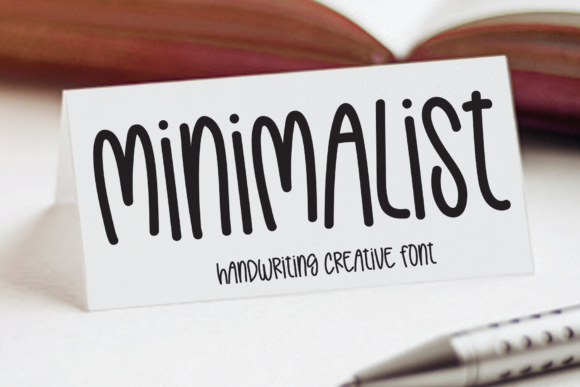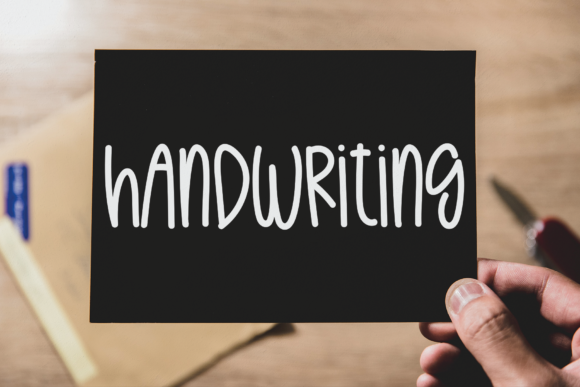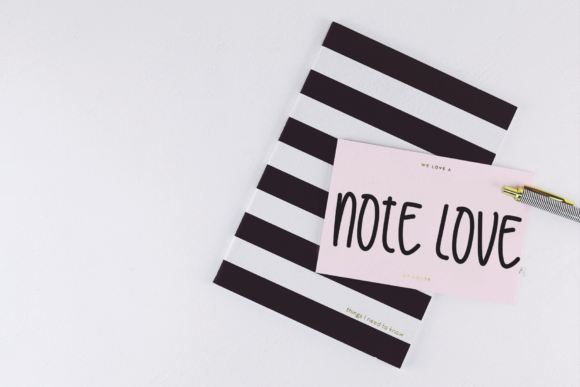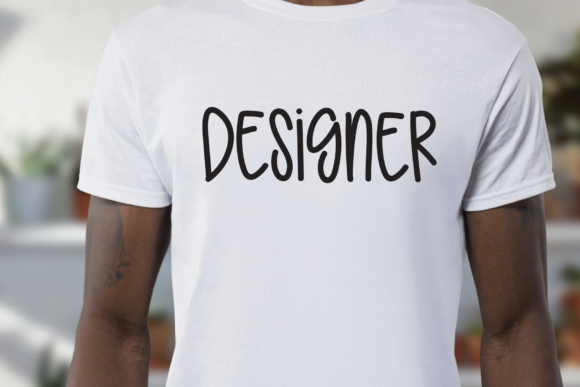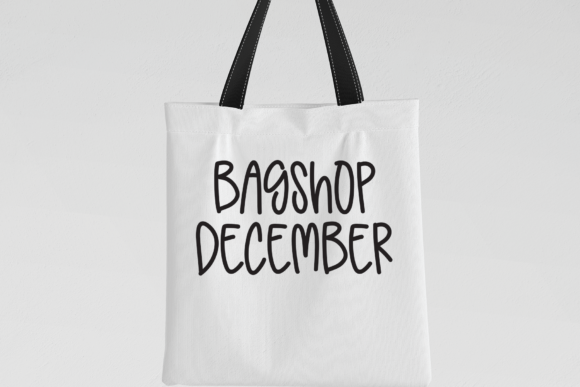
Minimalist Font
About Minimalist Font
Minimalist is a creative handwriting font, perfect for wall displays, wedding invitations, social media posts, logos, ads, product packaging, and product designs. You can also use it for labels, photography, watermarks, invitations, stationery, and any project that requires taste handwriting.